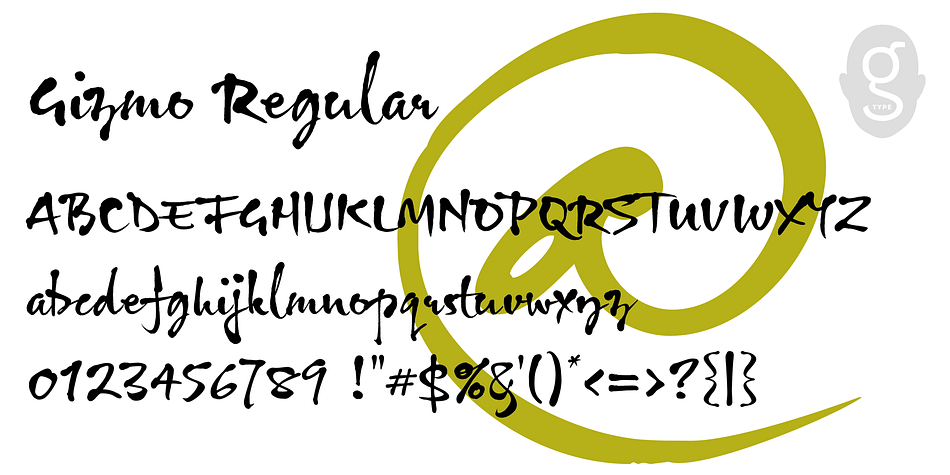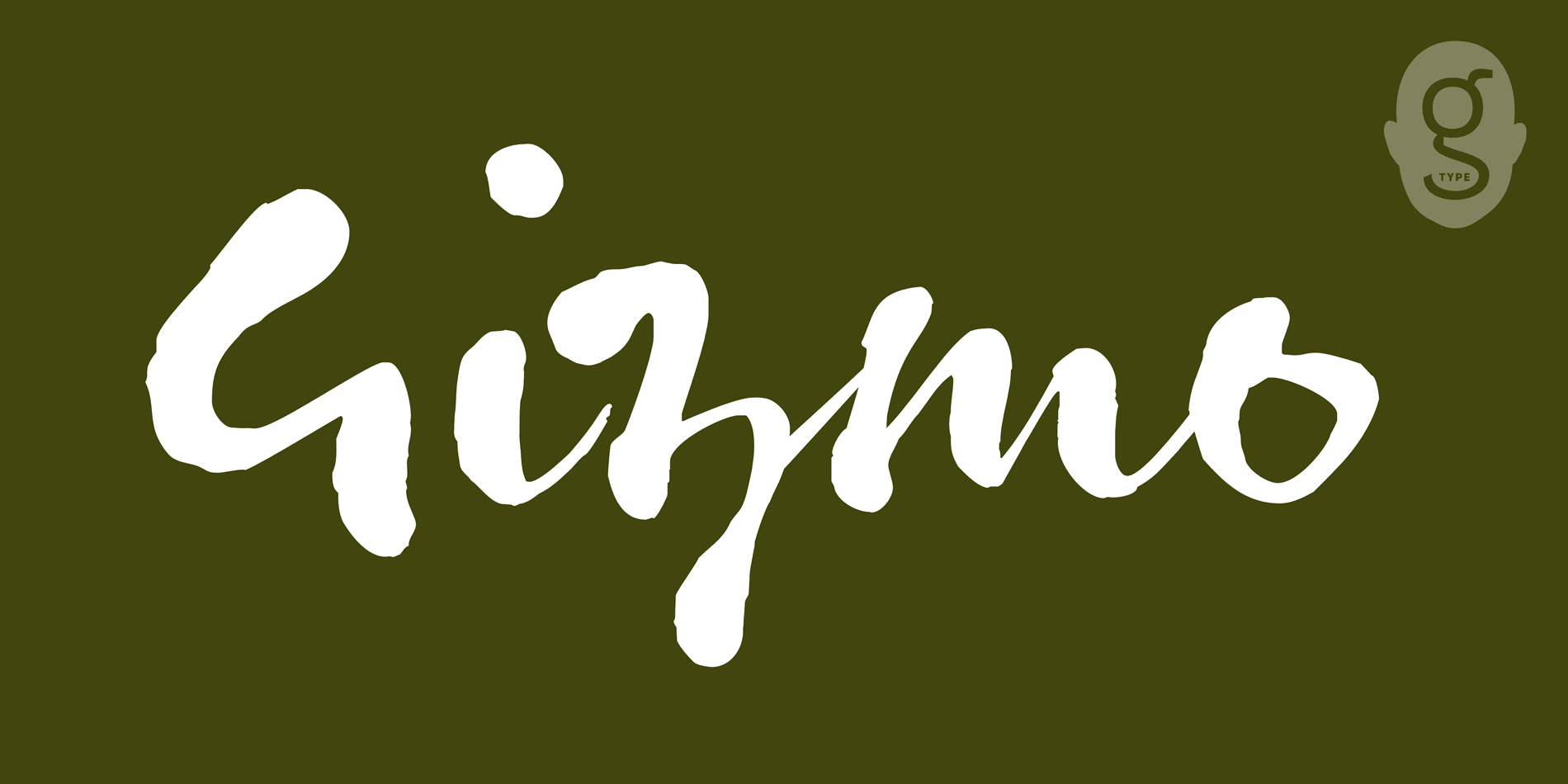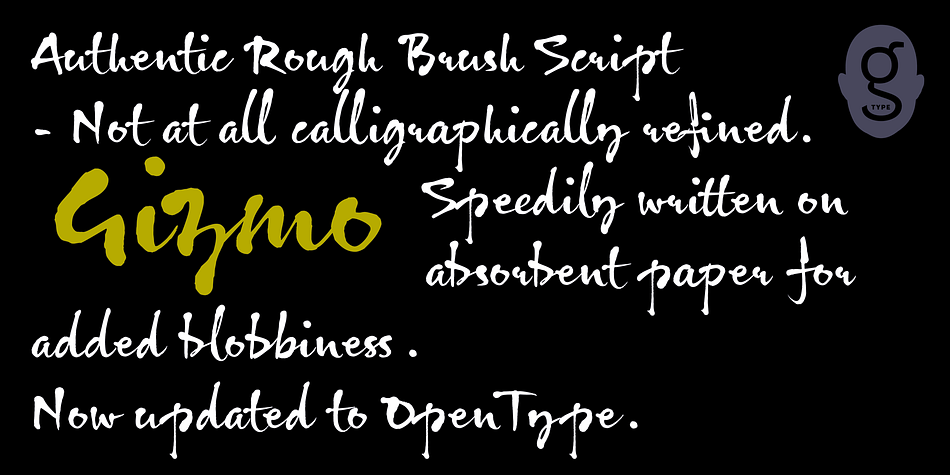
Designed by Nick Cooke, Gizmo is an exotic, hand drawn and script font family published by G-Type.
Gizmo was created by writing with a brush pen on fairly porous paper, selecting the best characters, then scanning and tracing with precision to maintain maximum character integrity.
Clever programming ensures an even flow when set as text, enabling Gizmo to appear as quickly-written handwriting. The inclusion of multiple ligatures, which automatically kick in as you type, give Gizmo a truly authentic brush script appearance and hand-drawn dynamic.
Gizmo works especially well at large sizes when the characteristically blobby and uneven edges become more evident.